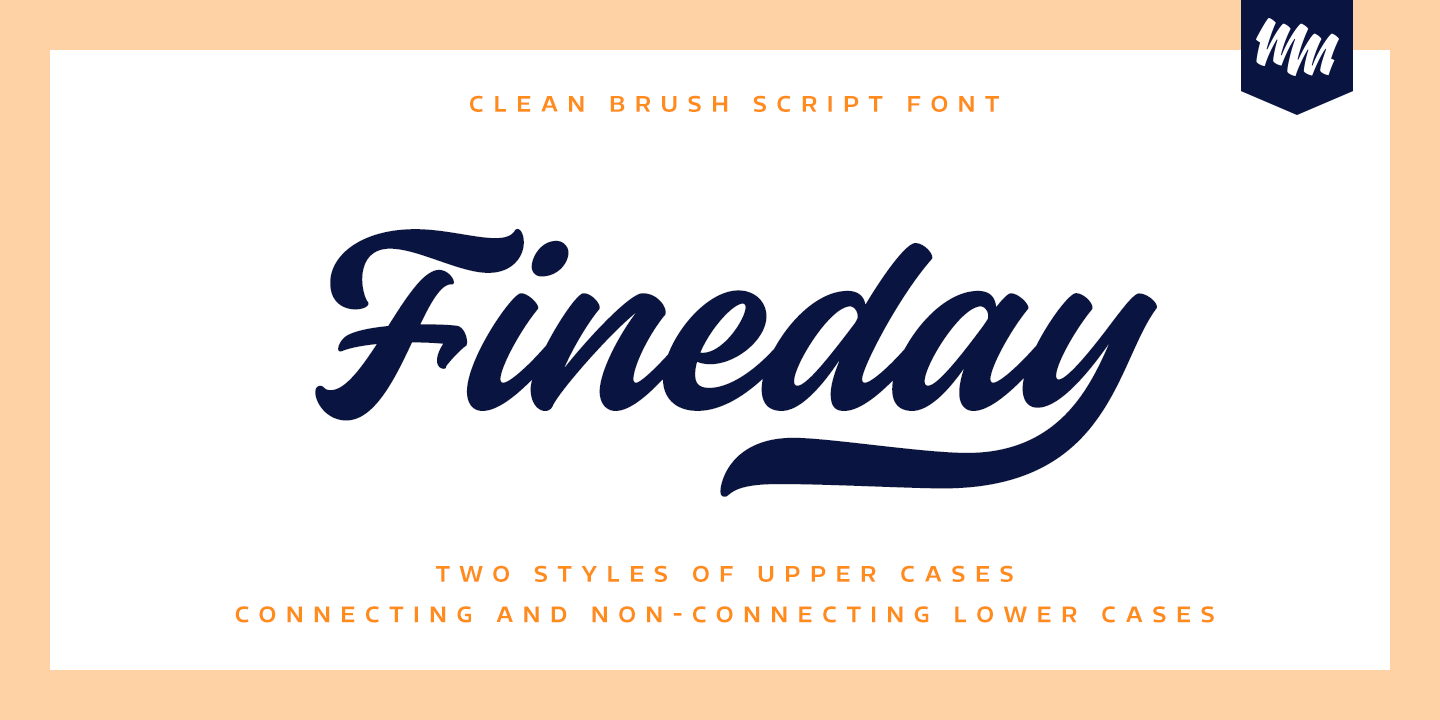
Fineday Font is perfect for various applications including cheerful greeting cards, sunny lifestyle branding, optimistic wellness materials, bright morning campaigns, positive social media graphics, uplifting motivational designs, happy event invitations, radiant beauty products, joyful children's books, and inspiring personal development content.
What makes Fineday Font so exciting is its remarkable ability to instantly uplift spirits and create feelings of joy through typography that radiates sunshine, optimism, and the promise of beautiful days ahead. This uplifting typeface features bright, cheerful letterforms with sunny proportions and happiness-inspired details that capture the essence of perfect weather and positive energy. The font's optimistic character and sunshine-focused aesthetic make it ideal for brands that want to convey joy, positivity, and bright outlook to audiences who seek happiness, wellness, and uplifting experiences in their daily lives.
Fineday Font family includes multiple weights and styles: Light, Regular, Medium, Bold, Bright, Condensed, Extended, Sunny, and cheerfully crafted Italic variants. Each family member maintains the font's signature optimism while offering different levels of visual impact and stylistic flexibility for diverse uplifting and positive applications.
The Fineday Font Free Download provides designers with access to a sunshine-inspired typeface that excels in wellness and lifestyle markets. Whether you're creating joyful brand identities, designing uplifting marketing materials, or developing positive digital experiences, this font delivers the bright aesthetic needed to connect with happiness-seeking audiences and optimism-focused consumers. Its sunny styling and positive essence make it particularly effective for wellness brands, lifestyle companies, and motivational service providers.
Typography optimists will appreciate the cheerful energy and positive craftsmanship in Fineday Font's design. The font features brightly flowing letterforms with sunny proportions, optimized spacing for joyful reading experiences, and carefully crafted details that ensure excellent readability while maintaining its uplifting character. From wellness center signage to motivational book covers, this typeface maintains its brightness and positive appeal across all happiness-focused contexts.
For wellness web designers, Fineday Font provides outstanding performance in uplifting digital environments and positive lifestyle platforms. The font's technical specifications are optimized for cheerful presentations while preserving the bright, sunny edges that define its optimistic character. Its positivity makes it suitable for both static wellness content and interactive joyful experiences.
Creative professionals working in wellness industries, lifestyle branding, motivational services, and positive psychology will find Fineday Font to be an essential tool for projects requiring uplifting visual communication. The font's ability to convey joy, optimism, and positive energy makes it invaluable for brands targeting happiness-seeking demographics and wellness-conscious audiences.
Design agencies specializing in wellness and lifestyle brands appreciate Fineday Font's versatility in creating memorable sunny identities that brighten and inspire.